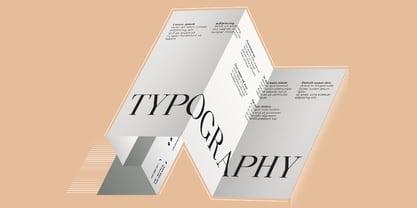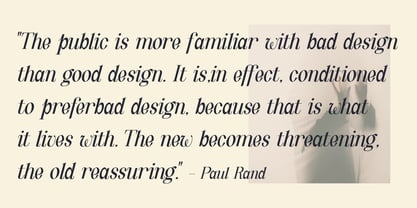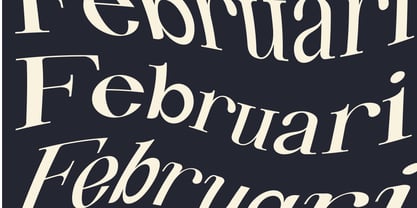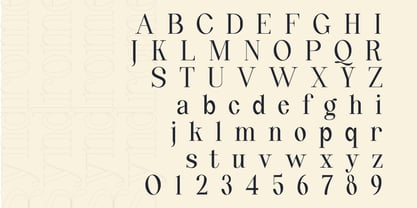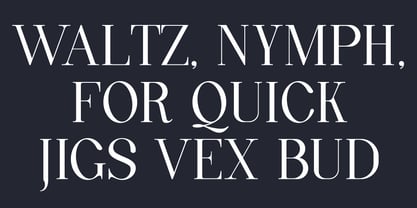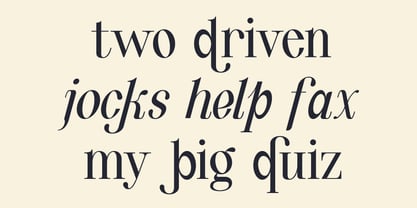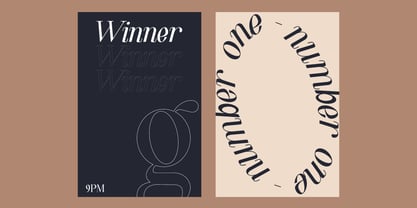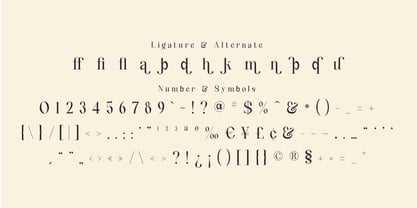
Quinty
by Lettertype Studio
The Quinty Font Family was designed by Diki Pradipta Tri Atmojo and published by Lettertype Studio. Quinty contains 2 styles and family package options. More about this family
Quinty is a modern font with a classic style with 389 glyphs total. My inspiration for making the Quinty font was my village because so many old houses contain old and classic elements. Then I tried to put it in my latest artwork to get a classic and modern feel. This font will be perfect for your logo design, branding, clothing, signage, posters, wedding invitations, cosmetics or fashion and so much more! Quinty will help your project or your brand to have a unique vintage and classic look.
Designers: Diki Pradipta Tri Atmojo
Foundry: Lettertype Studio